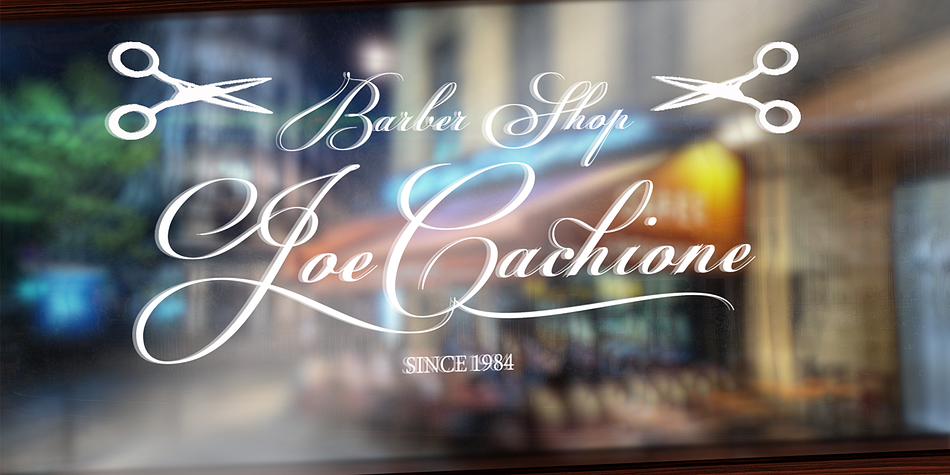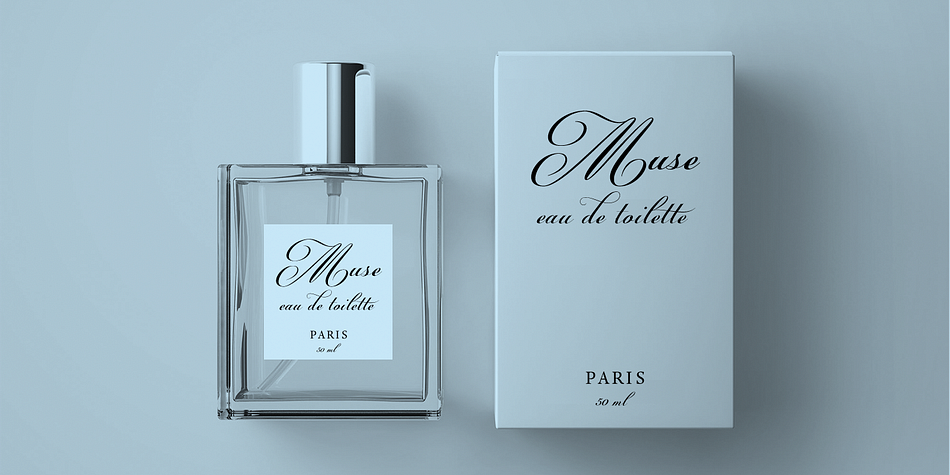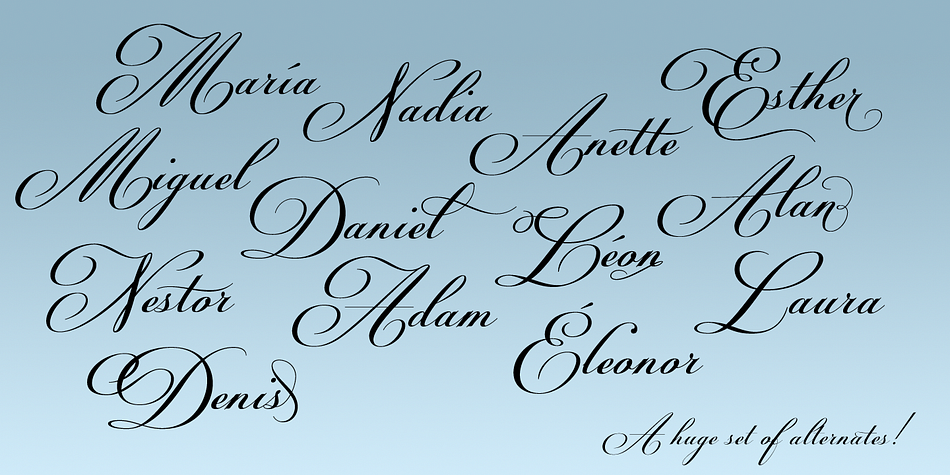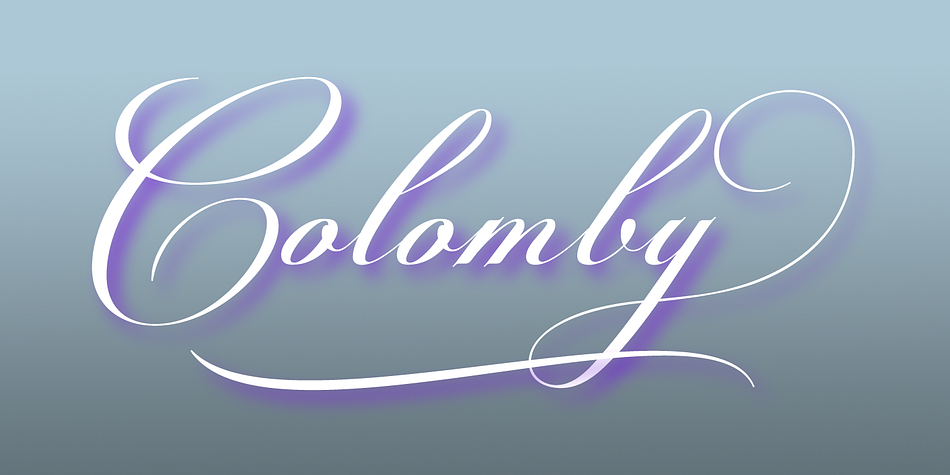
Designed by Carine de Wandeleer, Colomby is a script font published by Eurotypo.
The copperplate or English round handwriting style has a great inclination with extensive extensions of ascending and descenders strokes, widely ornate.
Colomby is a contemporary calligraphic font with classical roots, based on an 18th-century English manuscript. It is carefully designed, with a special emphasis on the connection of the letters, with high ascenders to give rise to the ornaments of the different letters. There is a special search for high readability.